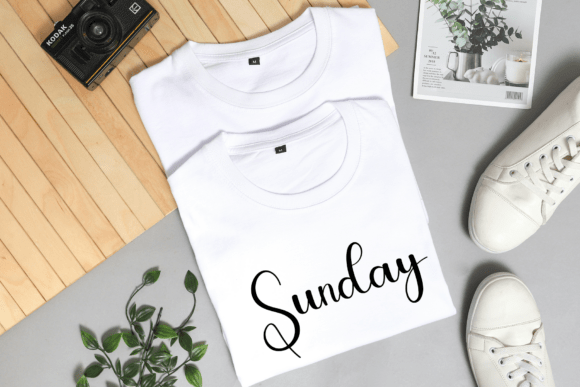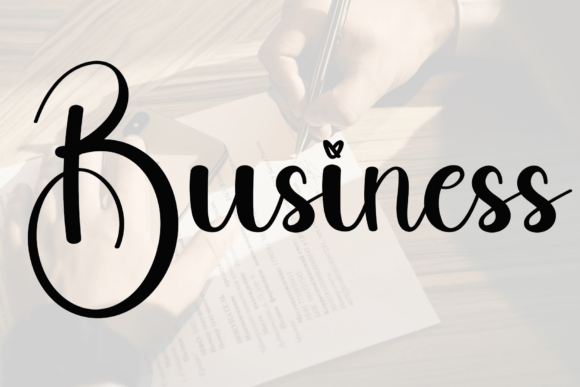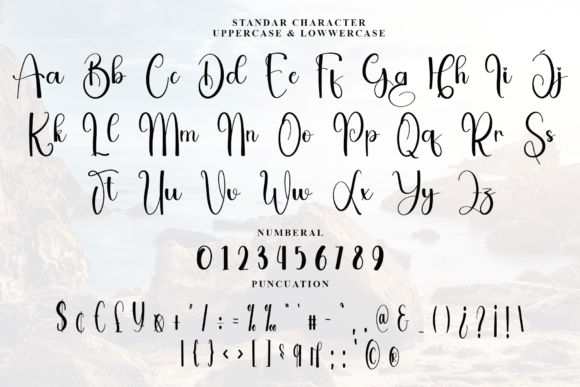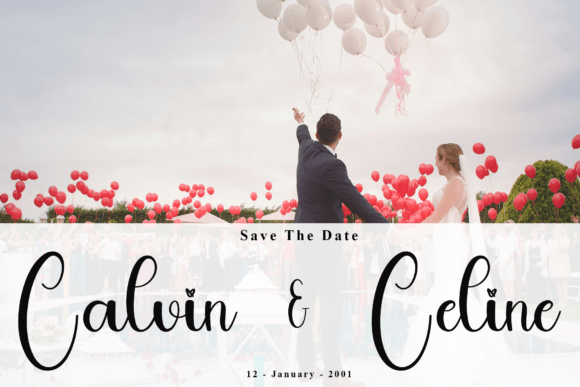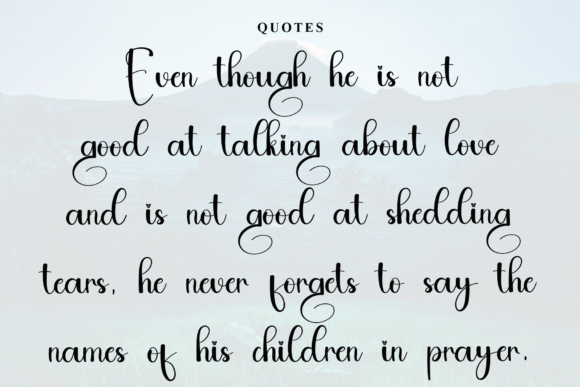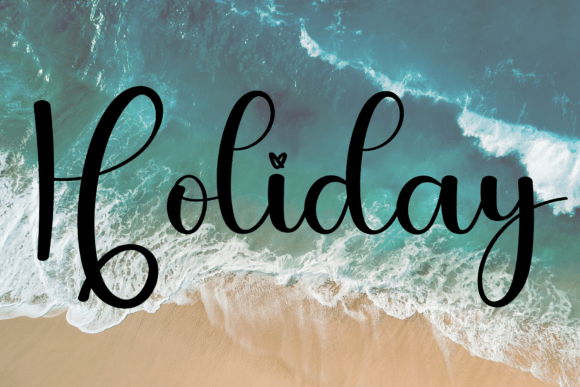
Father Signature Font: Elevate Your Designs with Elegance and Charm
In the world of typography, few fonts manage to convey the perfect blend of elegance, charm, and sophistication. Father Signature is one such stylish handwritten script font that has captured the hearts of designers and crafters alike. With its flowing, graceful curves, this beautiful font is perfect for adding a personal and sophisticated touch to any design.
The Essence of Father Signature Font
Father Signature is more than just a font; it’s an expression of creativity and refinement. Its delicate strokes bring warmth and character to your projects, making it an ideal choice for a variety of design applications. Whether you’re working on invitations, logos, branding, or any other creative project, Father Signature is sure to make a lasting impression.
Key Features of Father Signature Font
- Elegant and Refined: Father Signature boasts a sophisticated and elegant appearance, perfect for designs that require a touch of luxury and refinement.
- Handwritten Script: The font’s handwritten script style gives it a personal and unique feel, making it stand out from more traditional fonts.
- Flowing Curves: The flowing, graceful curves of Father Signature add a dynamic and fluid touch to your designs, making them more visually appealing.
- Versatile: This font is incredibly versatile and can be used for a wide range of design projects, from invitations and logos to branding and packaging.
- Easy to Read: Despite its elegant and refined appearance, Father Signature is easy to read, making it perfect for both digital and print designs.
Uses of Father Signature Font
Father Signature’s versatility makes it suitable for a variety of design applications. Here are some of the most popular uses of this beautiful font:
- Invitations: Add a touch of elegance and sophistication to your invitations, whether it’s for a wedding, birthday, or any other special occasion.
- Logos and Branding: Use Father Signature to create unique and memorable logos and branding materials that reflect your brand’s personality and values.
- Stationery: Elevate your stationery designs, such as letterheads, business cards, and envelopes, with the font’s refined and elegant appearance.
- Packaging: Add a personal and sophisticated touch to your product packaging, making it stand out on store shelves.
- Digital Designs: Use Father Signature in your digital designs, such as social media graphics, blog headers, and website titles, to add a touch of elegance and refinement.
Tips for Using Father Signature Font
To get the most out of Father Signature, here are some tips to keep in mind:
- Pair with Contrasting Fonts: Pair Father Signature with contrasting fonts to create visual interest and hierarchy in your designs.
- Use for Headlines and Titles: Use Father Signature for headlines and titles to add a touch of elegance and sophistication.
- Experiment with Colors: Experiment with different colors to find the perfect match for your design and brand.
- Pay Attention to Spacing: Pay attention to spacing and kerning to ensure that your text is easy to read and visually appealing.
Father Signature is a beautiful and elegant handwritten script font that can elevate your designs to new heights. With its flowing curves, delicate strokes, and sophisticated appearance, it’s perfect for adding a personal and refined touch to any design. Whether you’re a designer, crafter, or DIY enthusiast, Father Signature is sure to become a valuable addition to your font collection.